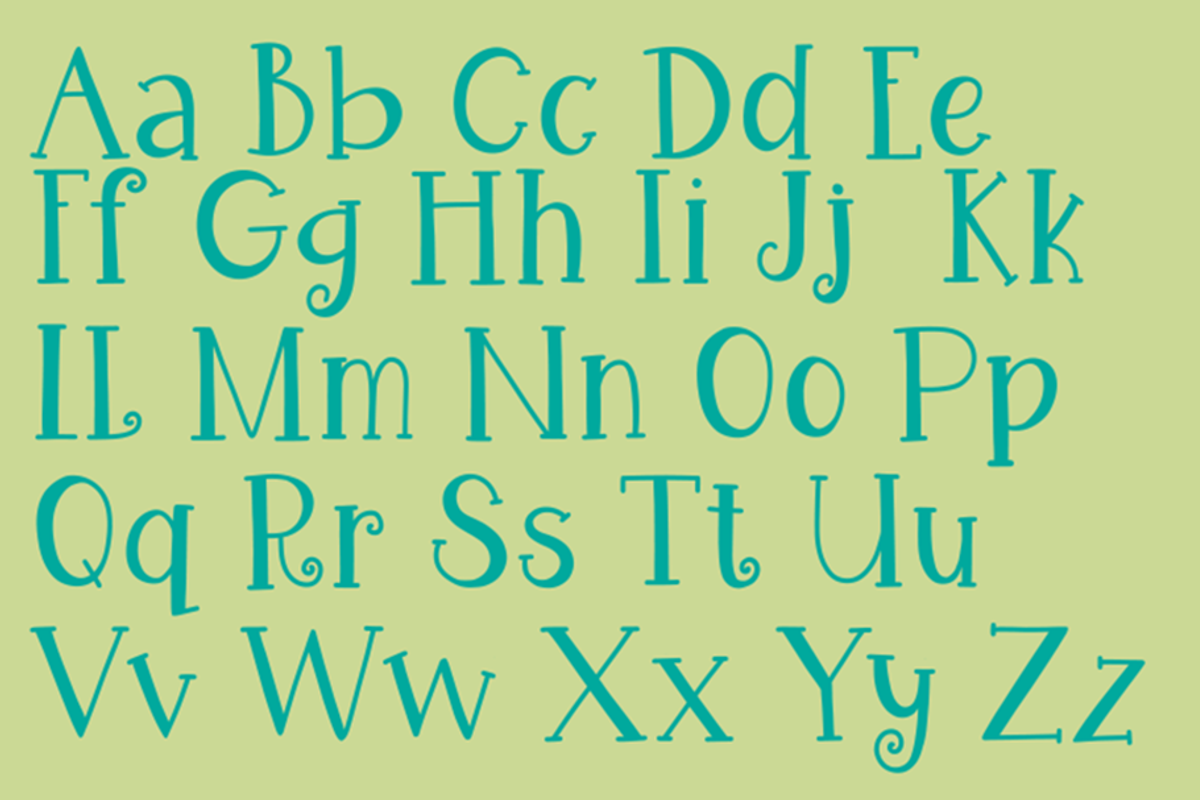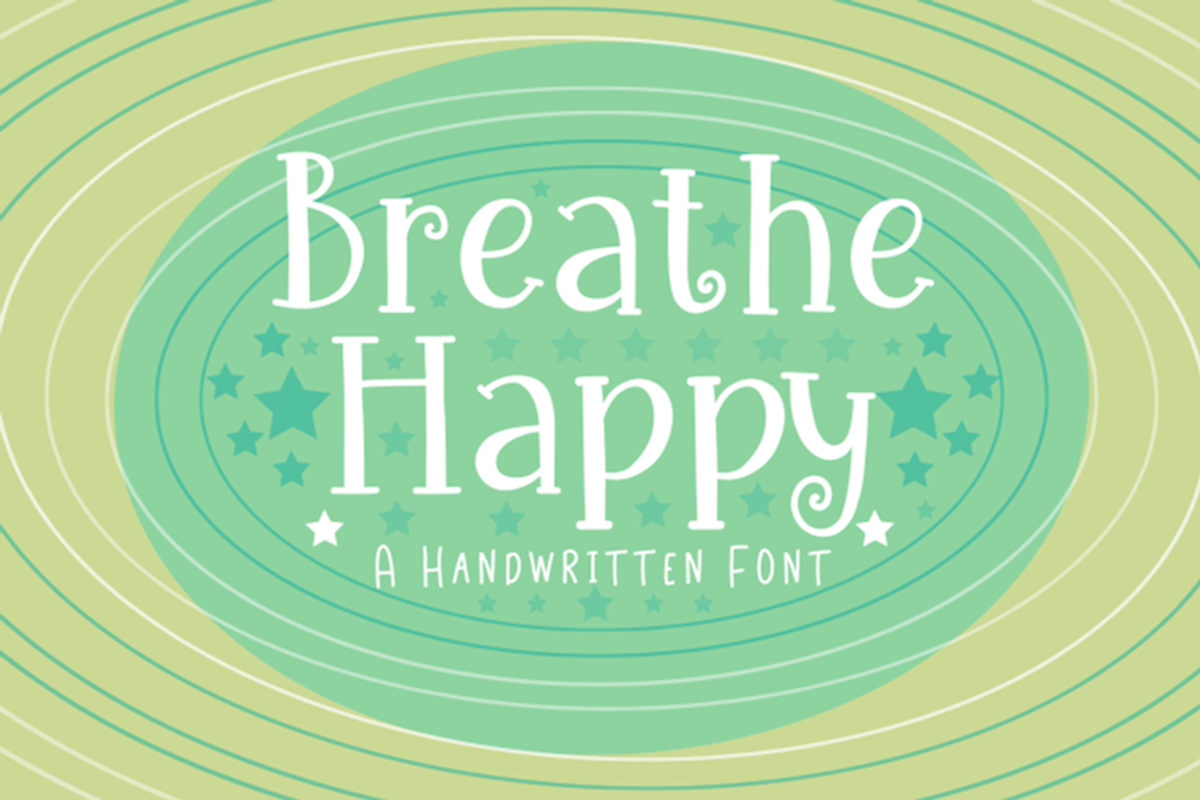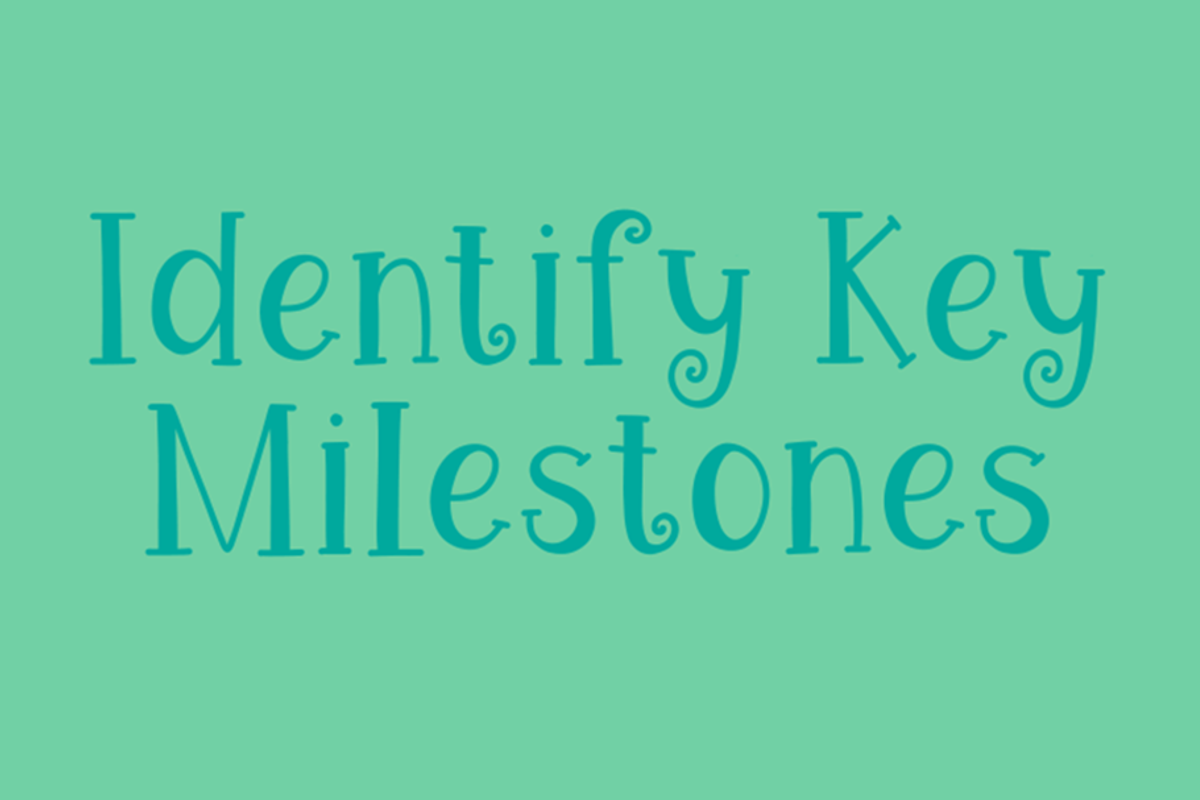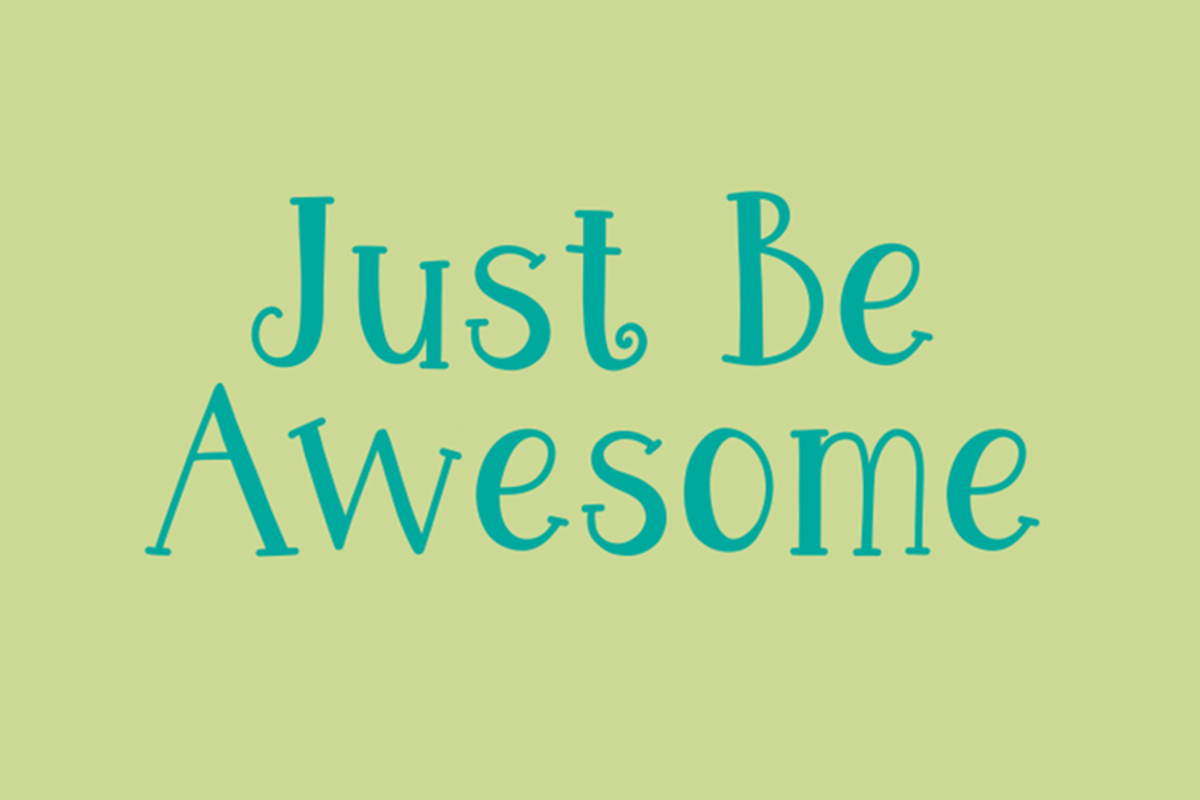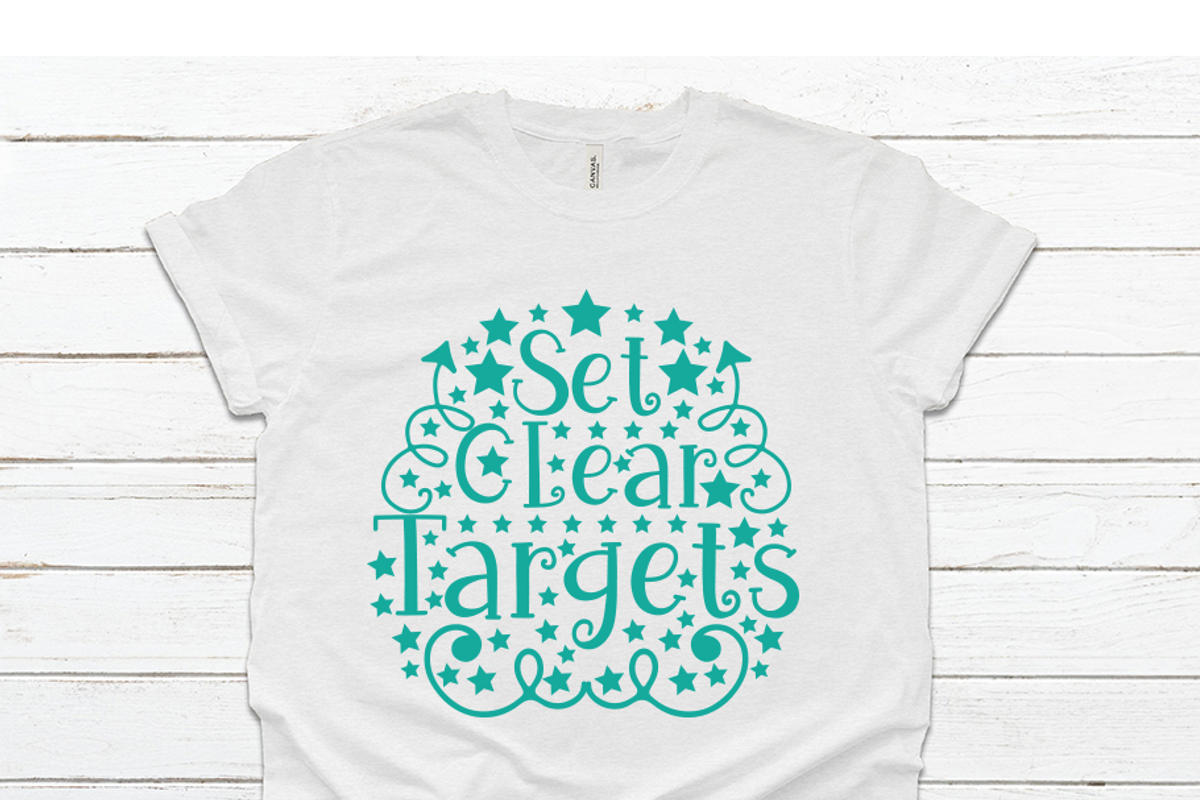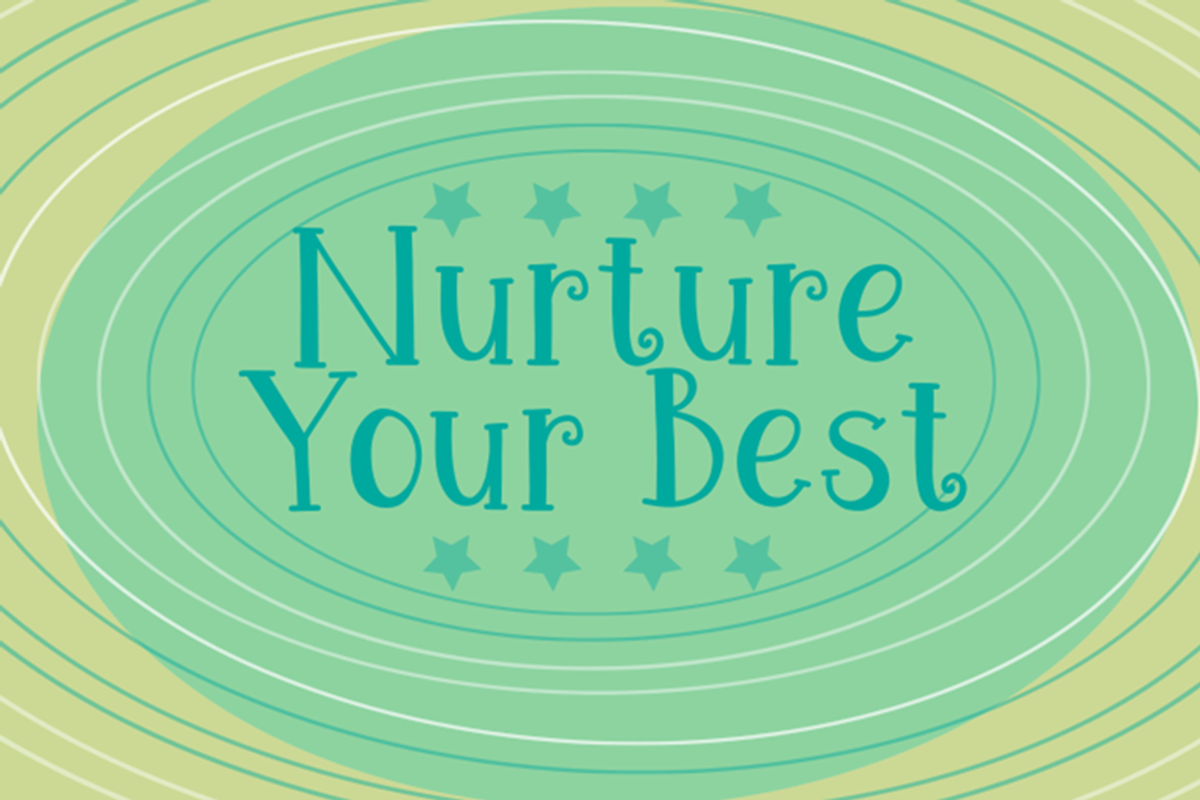
Breathe Happy
Breathe Happy is a fun, unique, handwritten, quirky font. It is ideal for branding, logo design, book covers, T-Shirt design, crafting, greeting cards, websites and much more. This purchase is available in both OTF and TTF files. Most common characters are included.